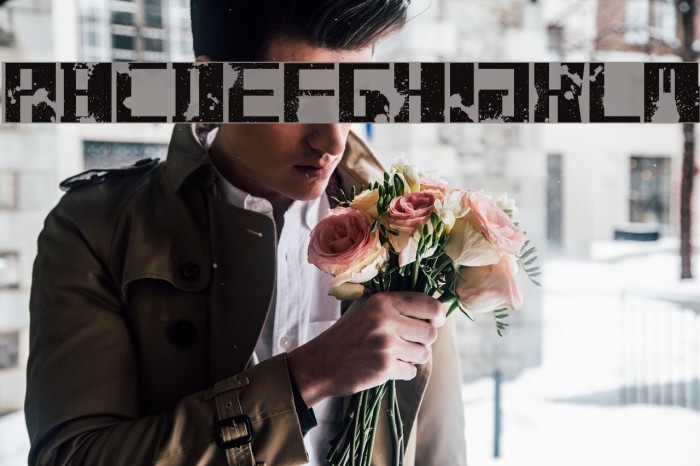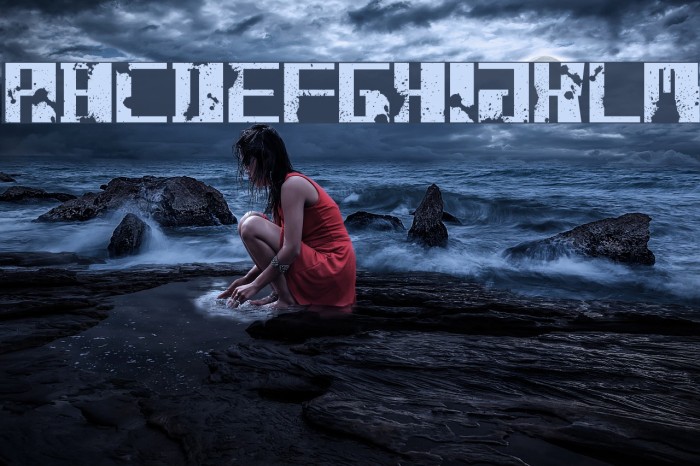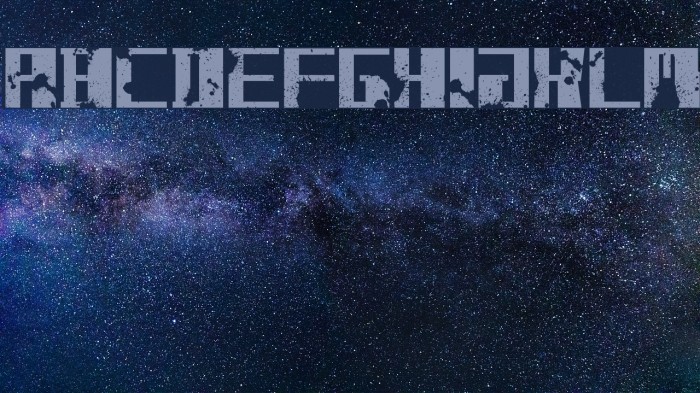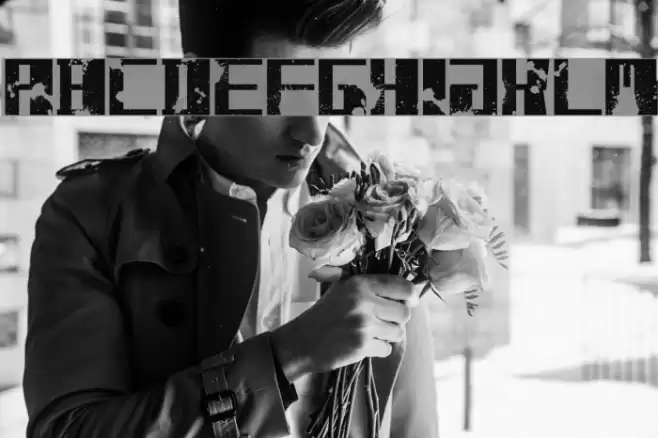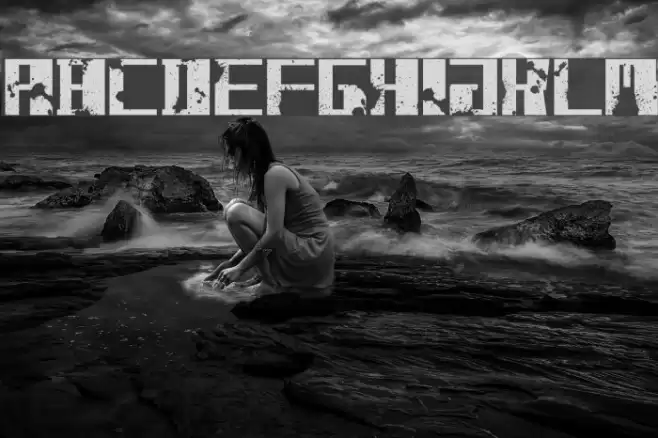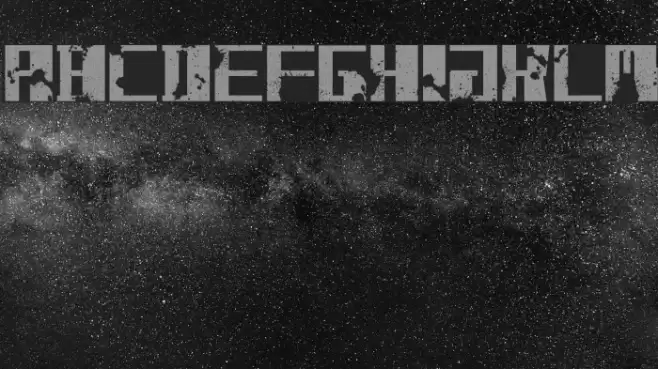
Gross Brush Font
This font features a rugged, distressed style with a bold and impactful presence. The characters are heavily textured, giving them a worn and weathered appearance, reminiscent of graffiti or urban street art. The uppercase letters are blocky and angular, with irregular edges that enhance the grunge aesthetic. The font's unique design makes it stand out, capturing attention with its raw and edgy look. It is ideal for projects that require a bold statement or an alternative, rebellious vibe.
A bold, distressed font with a rugged, graffiti-like style.
- Proposed Projects: Perfect for album covers, posters, streetwear branding, and urban-themed designs.